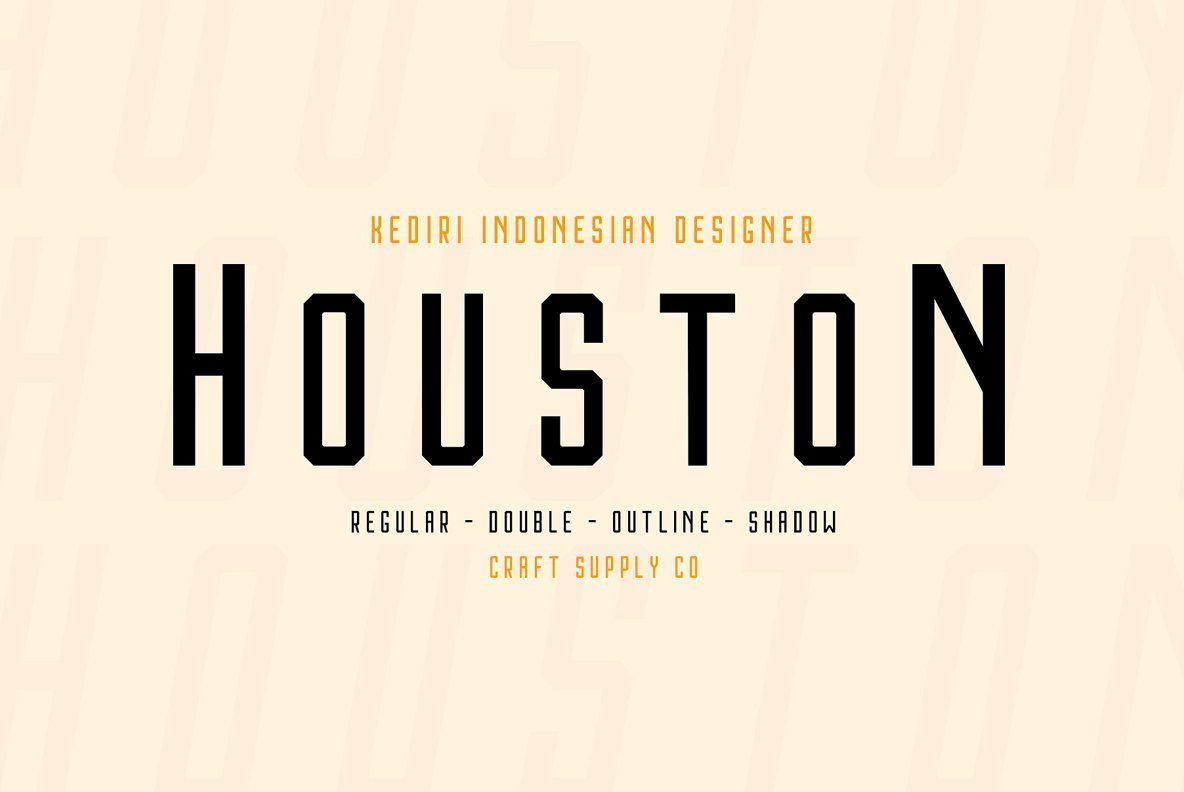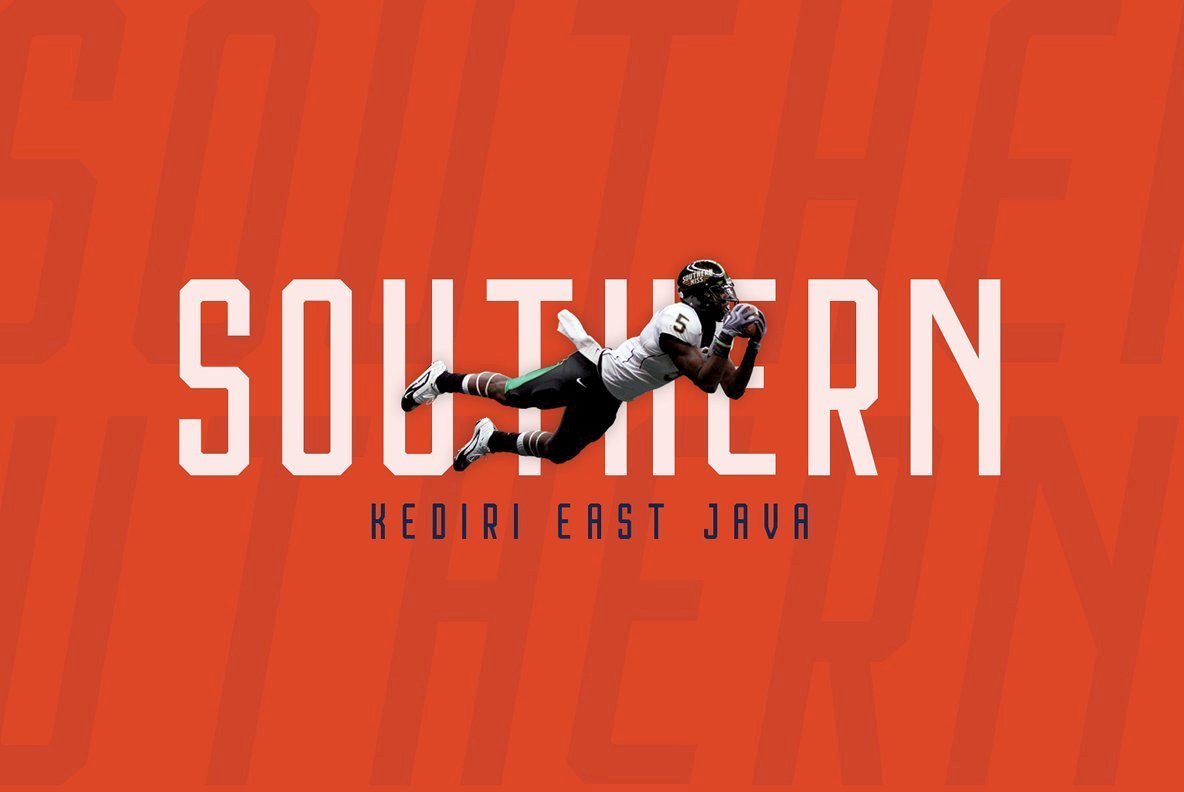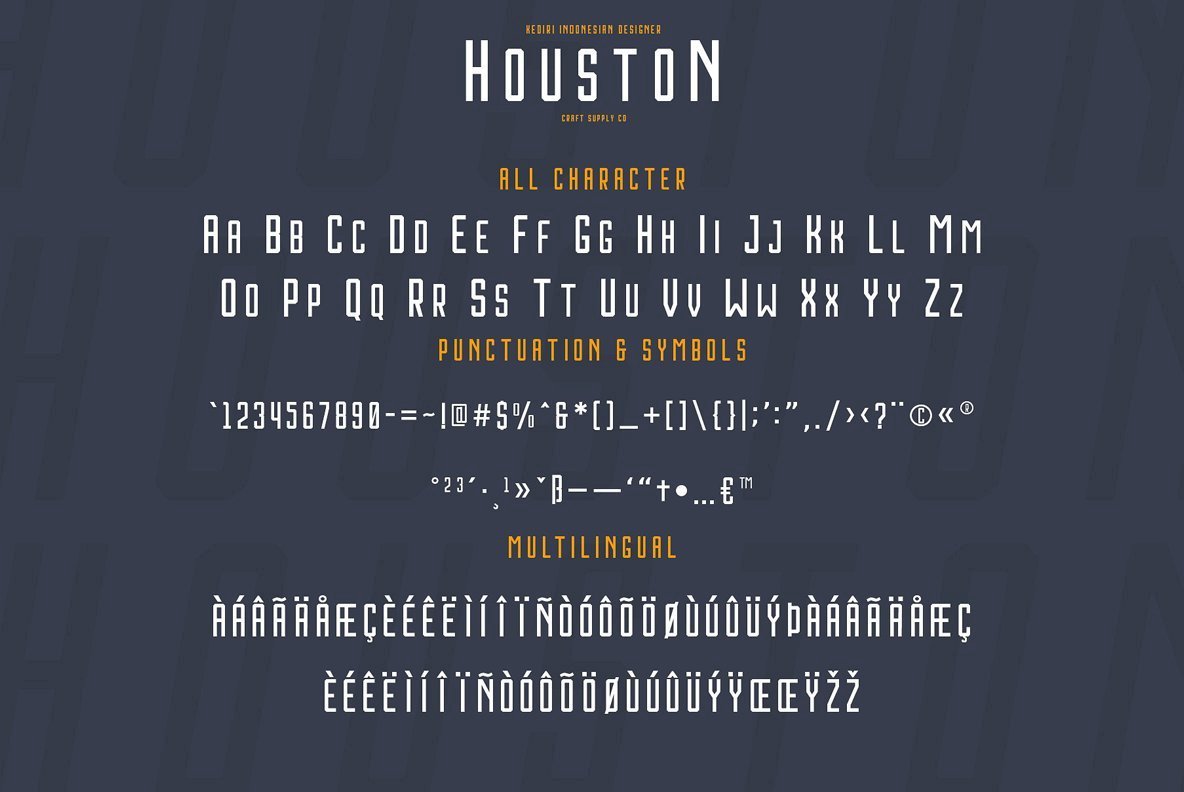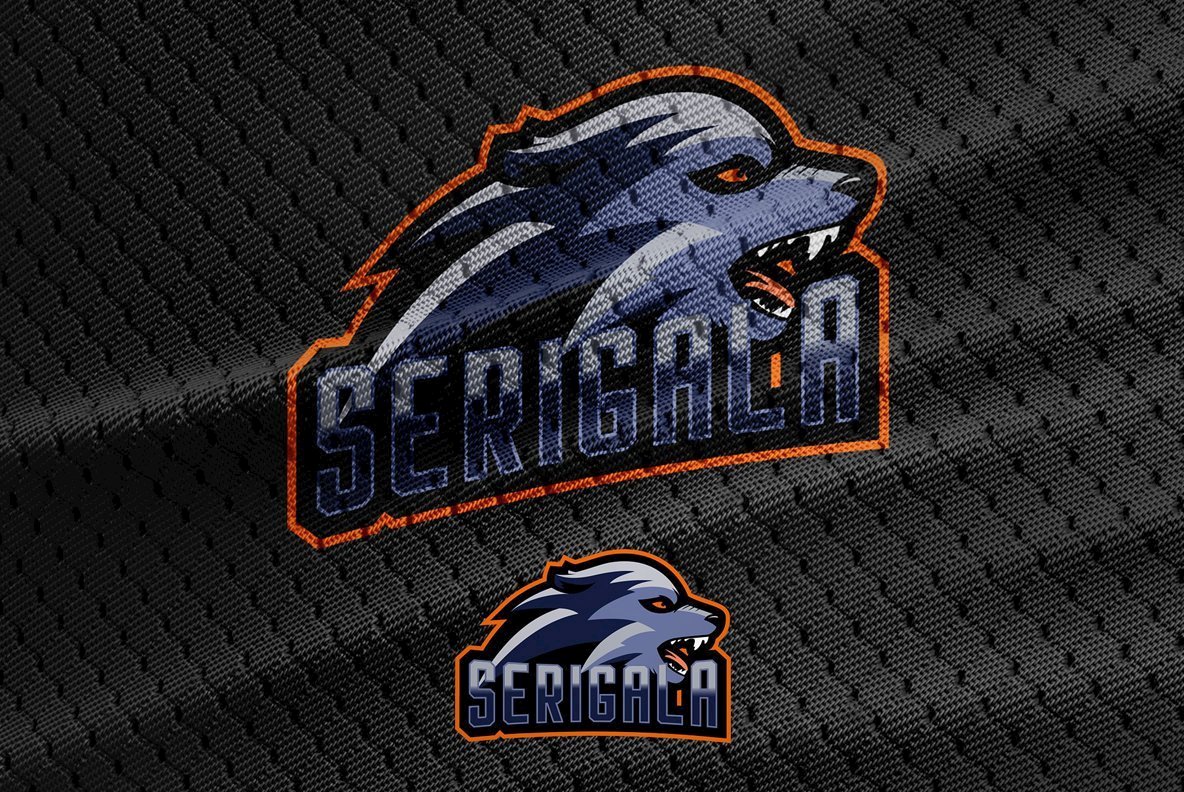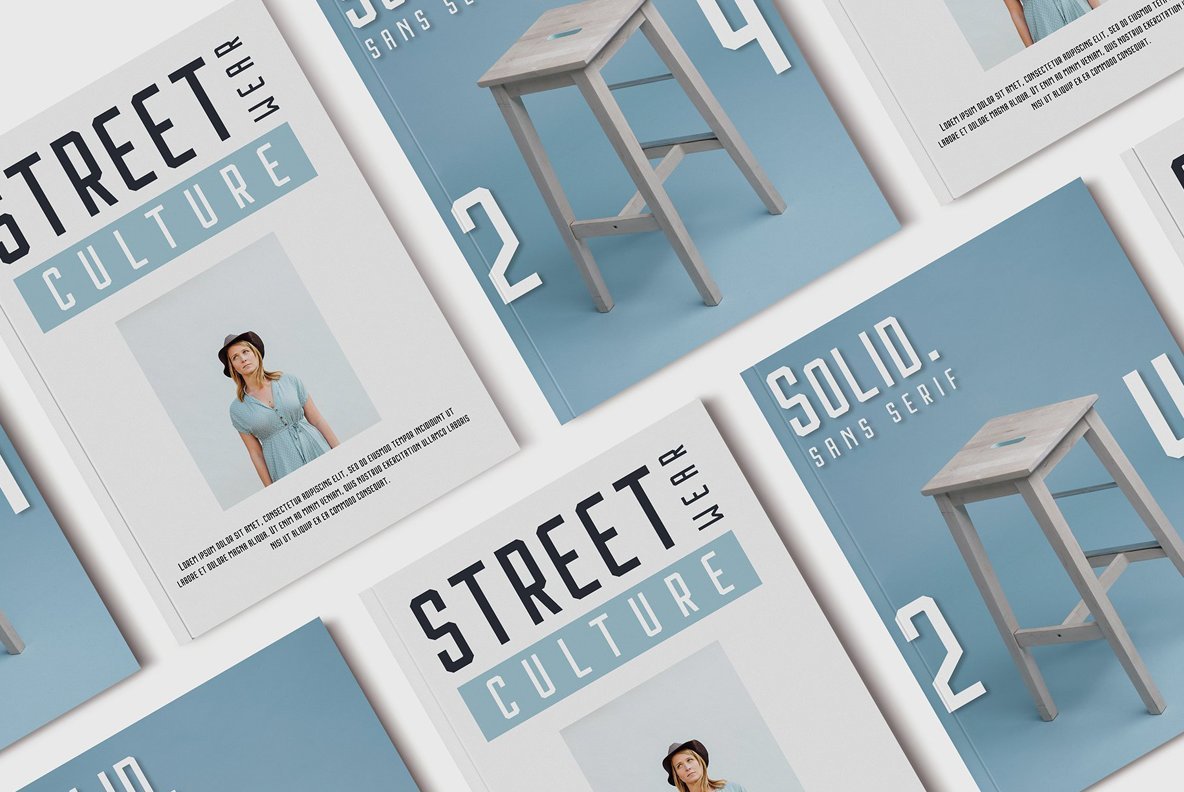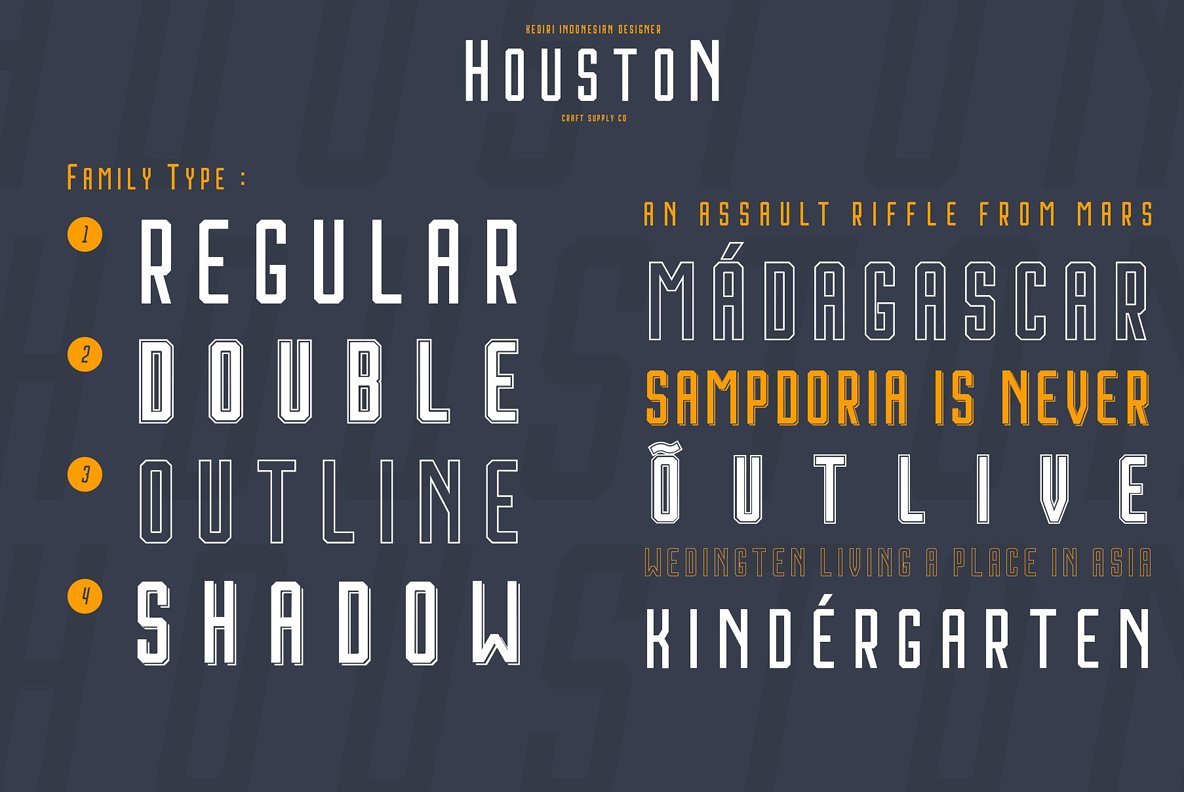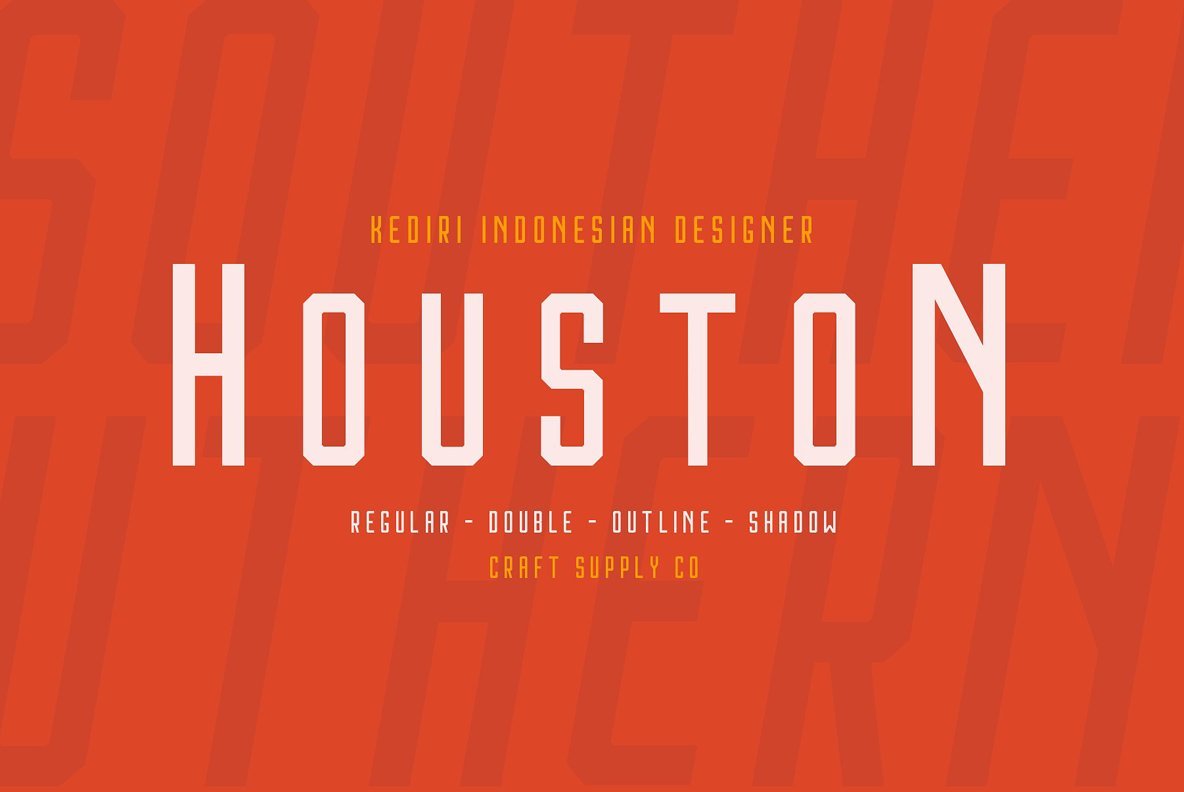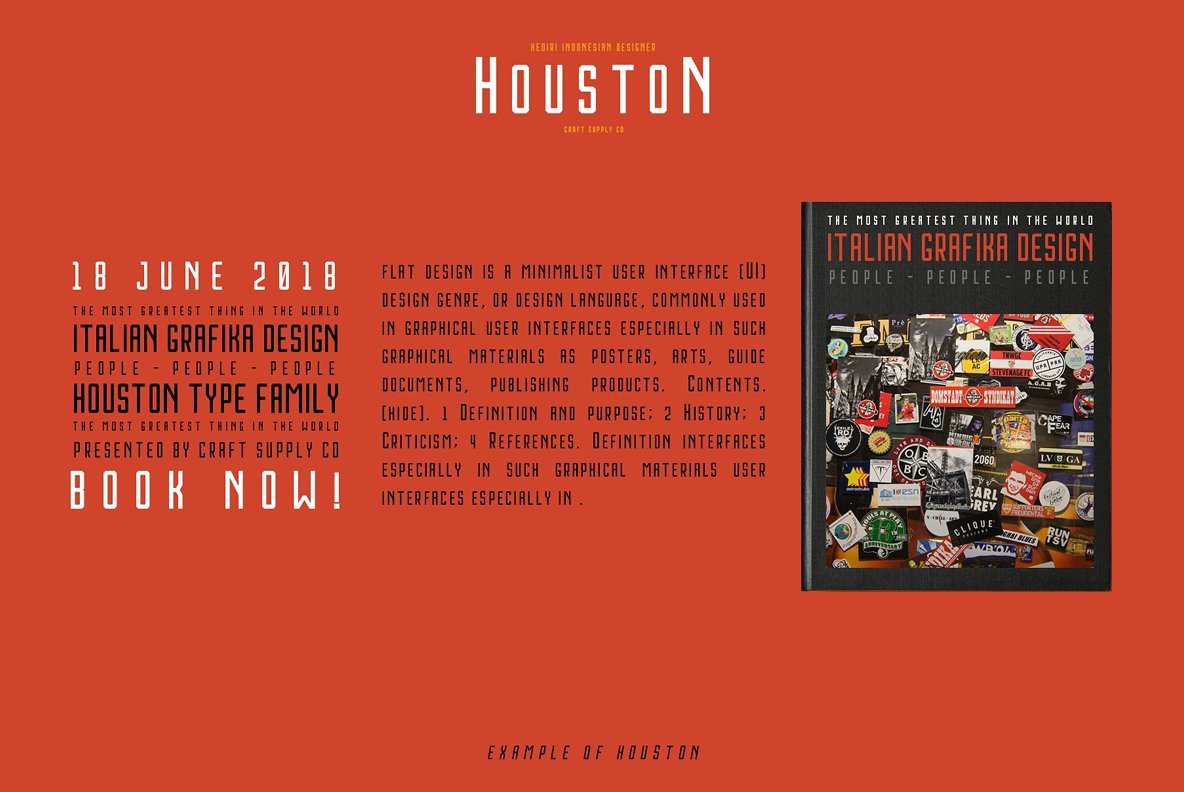
Houston Font
Houston Font Family is a modern modular sans serif family inspired by American sports graphics. Houston Font Family is based on the compact solid font, by combining a variety of styles. Suitable for Logo, greeting cards, quotes, posters, branding, name card, stationary, design title, blog header, art quote, typography.